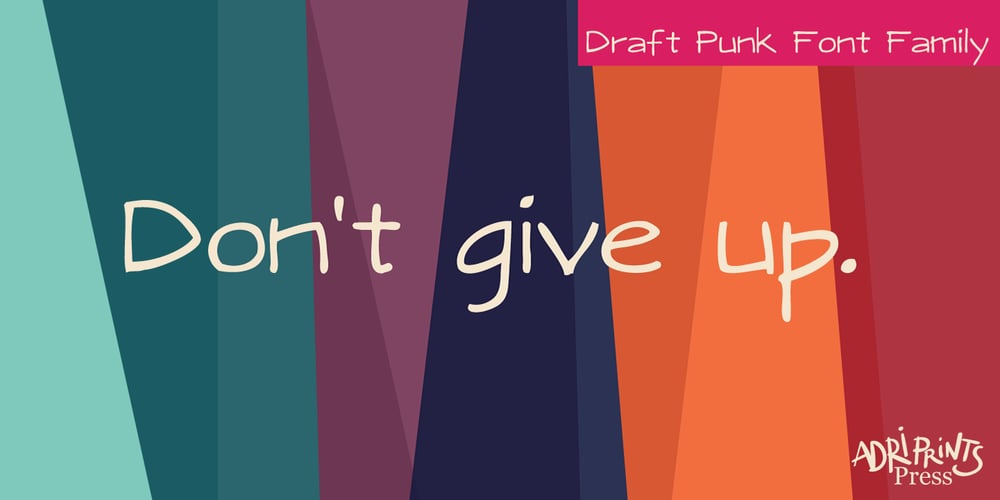
Draft Punk Font Family was designed by Adriana E. Hernandez and published by Adriprints. Draft Punk contains 10 styles and family package options. DraftPunk is a revival of the handwriting Adriprints used on her plans when designing for the stage. She found samples of these letters on ground-plans and design schematics that were in a dusty cardboard tube in her studio. DraftPunk was made with legibility and clarity in mind. – What are its main characteristics and features? It is legible, sans serif, includes standard encoding (umlauts, etc) – Usage recommendations – comics, drafting, everyday, invitations, novelty, scrapbooking